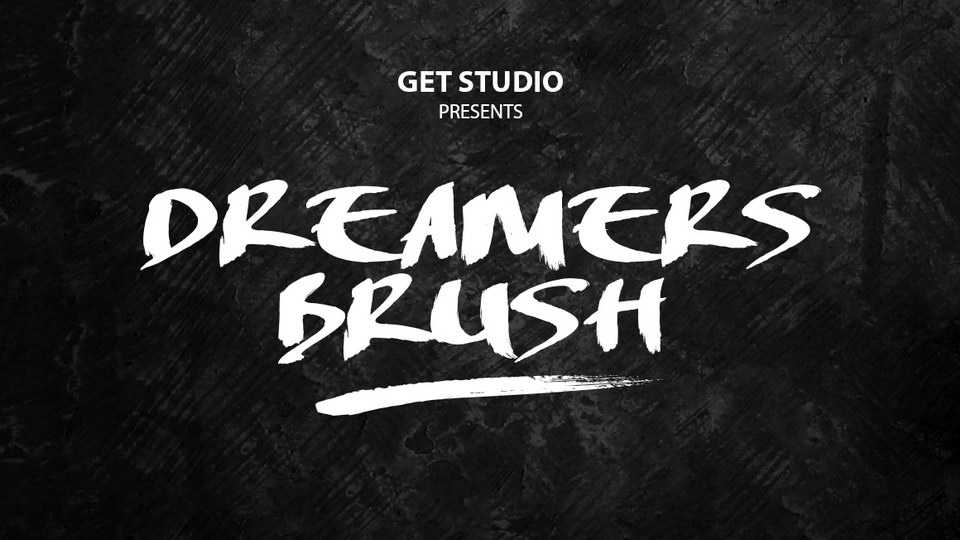
Download Dreamers Brush font, a handmade brush typeface, designed to combine perfectly and allow you to create stunning hand-lettering quickly and easily.
Designer: Get Studio